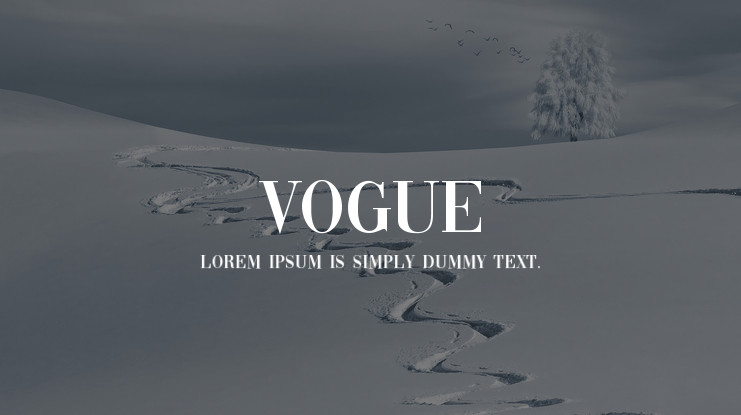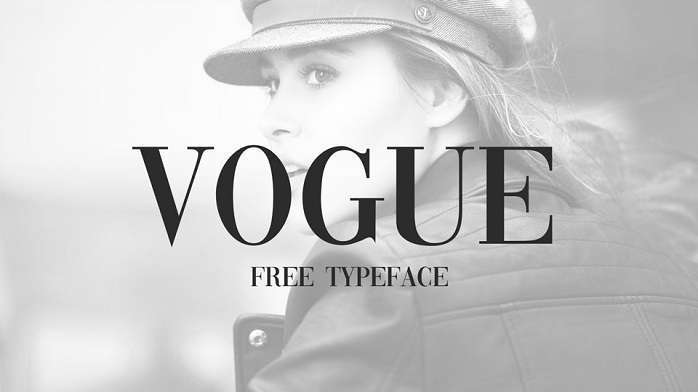
Vogue Font
Vogue Font is known for its bold and italic function. This typeface also supports for the copy and paste function.and its available for personal use. Its appearances are high in massive sizes in addition to small. But the geographies each higher and decrease case letterings, numbers, and glyphs.